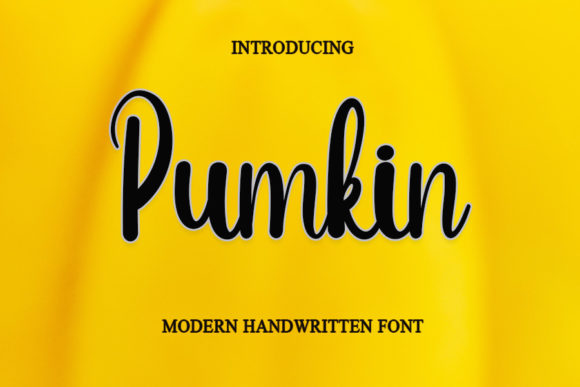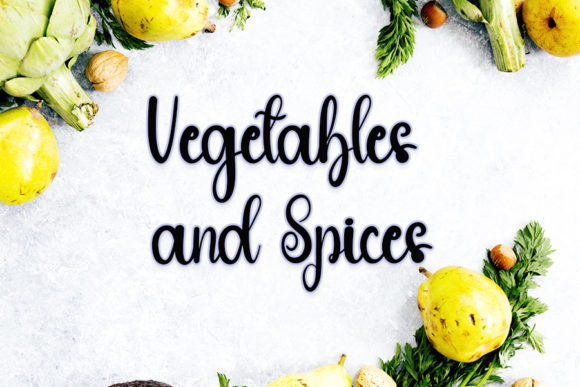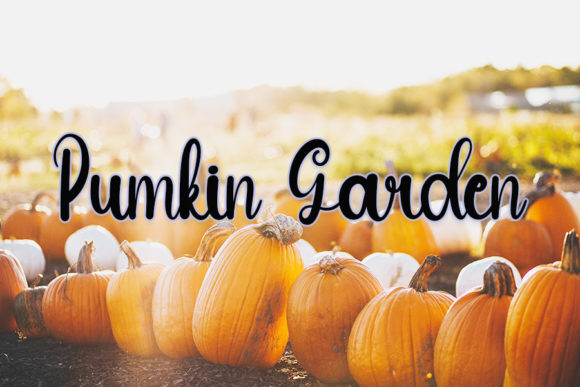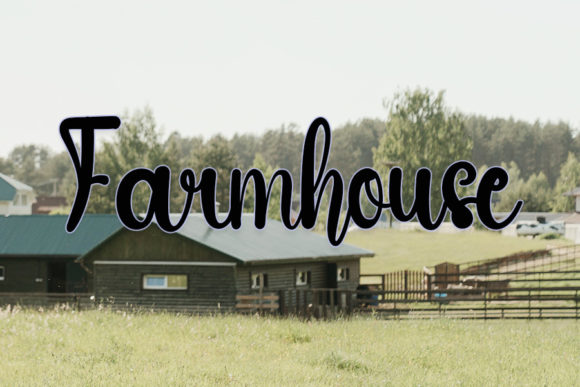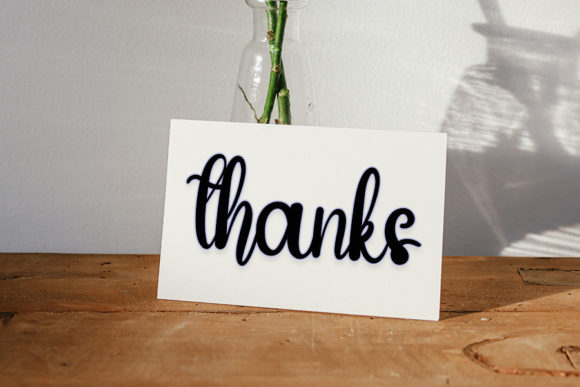
Pumkin Font
Pumkin Font: A Charming Handwritten Script for Creative Designs
The Pumkin font is a delightful handwritten typeface that captures hearts with its blend of timeless elegance and modern charm. It’s perfect for various design projects, from branding to invitations.
Versatility in Design Applications
Pumkin’s friendly nature makes it ideal for many creative tasks. It adds charm to branding, invitations, and social media graphics. The font’s graceful letterforms create a sense of movement, making each character unique.
This script font balances classic and modern styles. It works well for romantic wedding invitations, professional branding, and eye-catching social media posts.
Pumkin’s Adaptability in Various Contexts
The versatility of Pumkin extends to different design needs. It suits both cheerful projects and formal ones. This flexibility helps infuse designs with personality and authenticity.
Craftsmanship and Aesthetic Appeal
Pumkin’s design shows careful attention to detail. Its calligraphic influences are evident in the flowing strokes and curves. This craftsmanship ensures the font maintains sophistication while remaining approachable.
Creating Lasting Impressions
Whether you aim to make a lasting impression or convey friendliness, Pumkin is up to the task. It elevates designs and has the potential to become a favorite among creative tools.
Conclusion: A Font for Diverse Creative Needs
Pumkin is a meticulously crafted font that marries timeless calligraphy with a fresh, friendly style. Its ability to maintain elegance while exuding warmth makes it suitable for various projects. From wedding invitations to brand materials, Pumkin adds a touch of charm that resonates with audiences.
This font’s appeal lies in its versatility and character. It allows designers to create visually appealing work that connects with viewers. Whether used for personal or professional projects, Pumkin has the potential to enhance the overall aesthetic and impact of your designs.